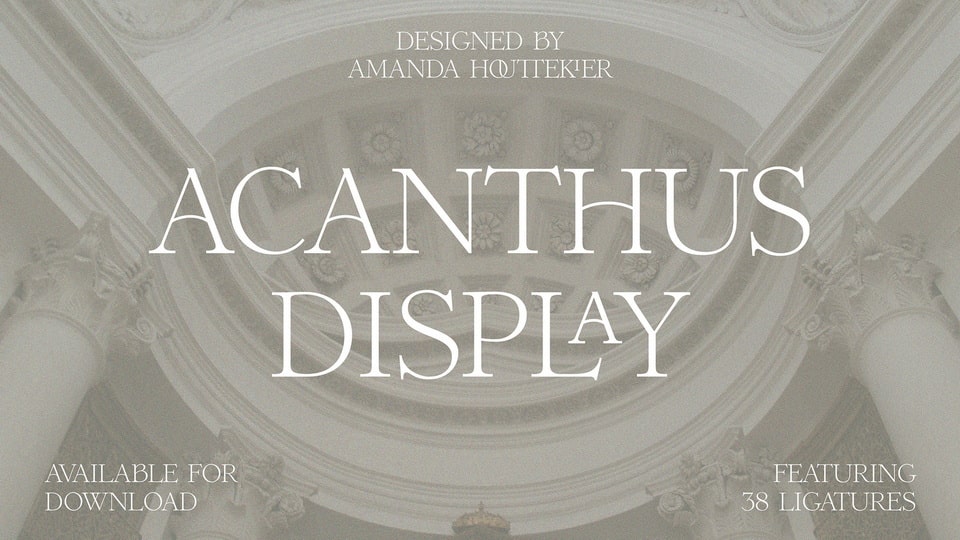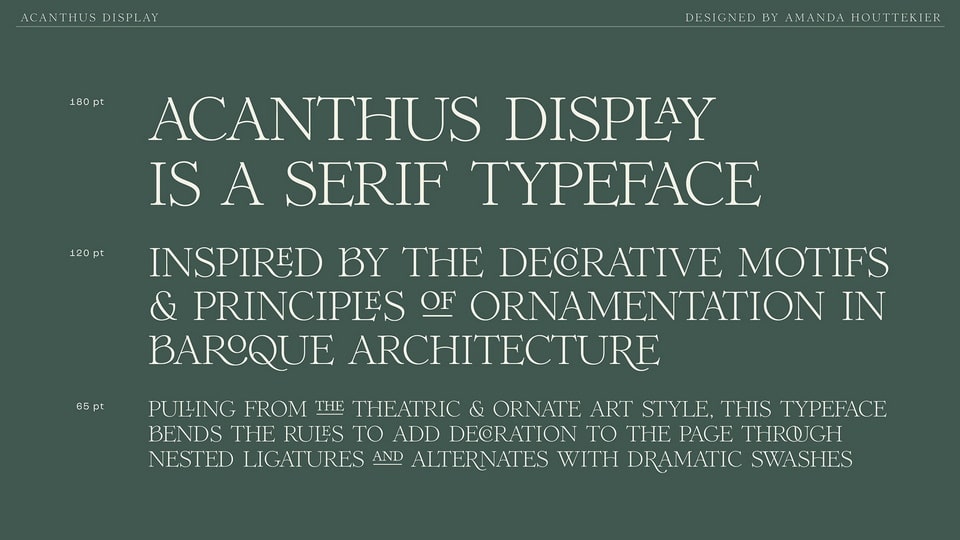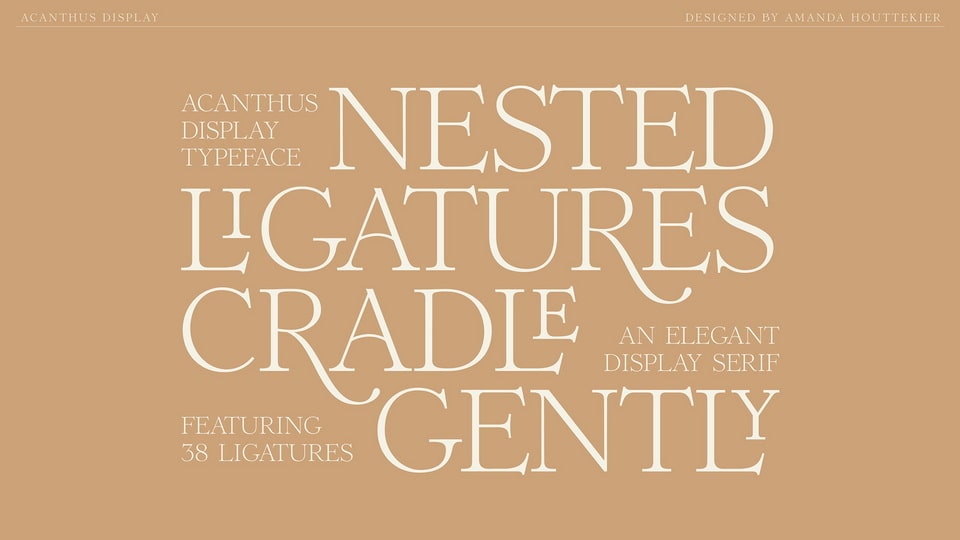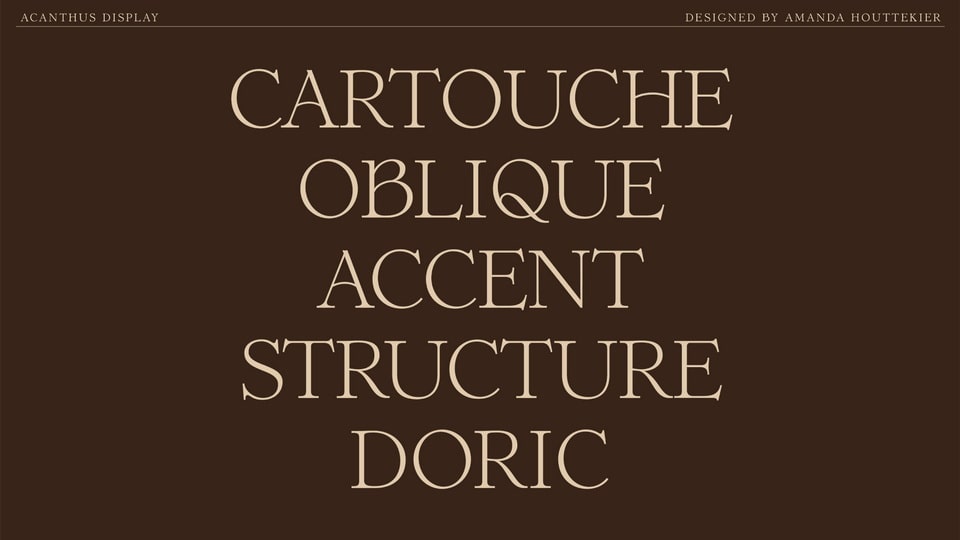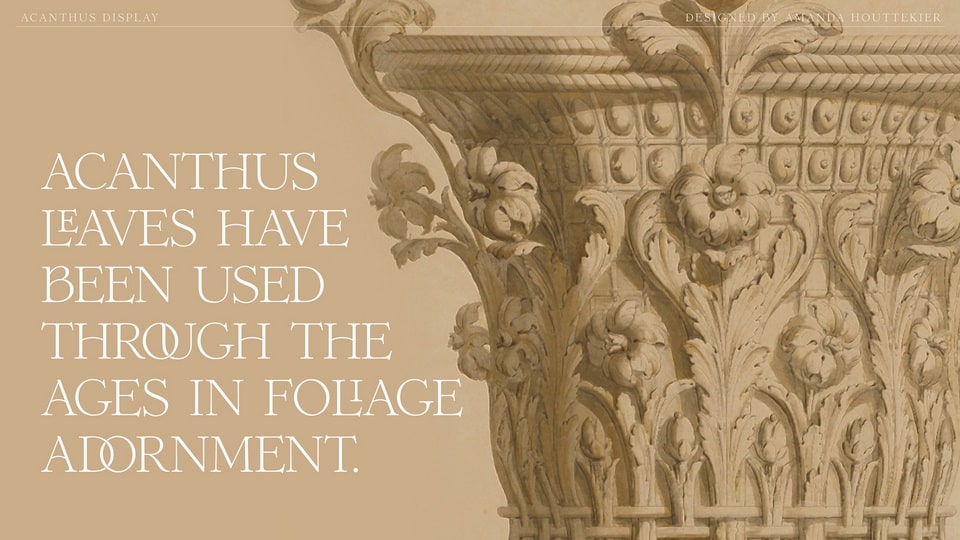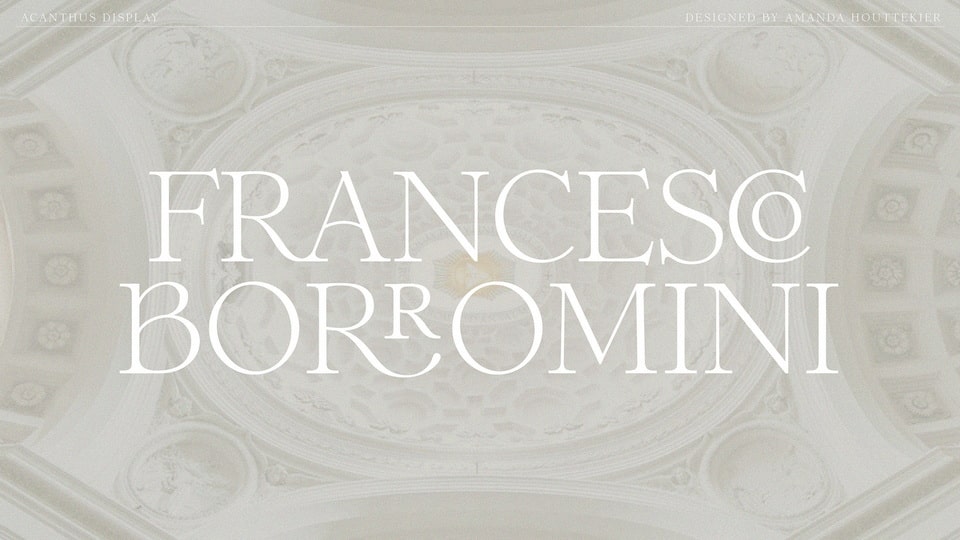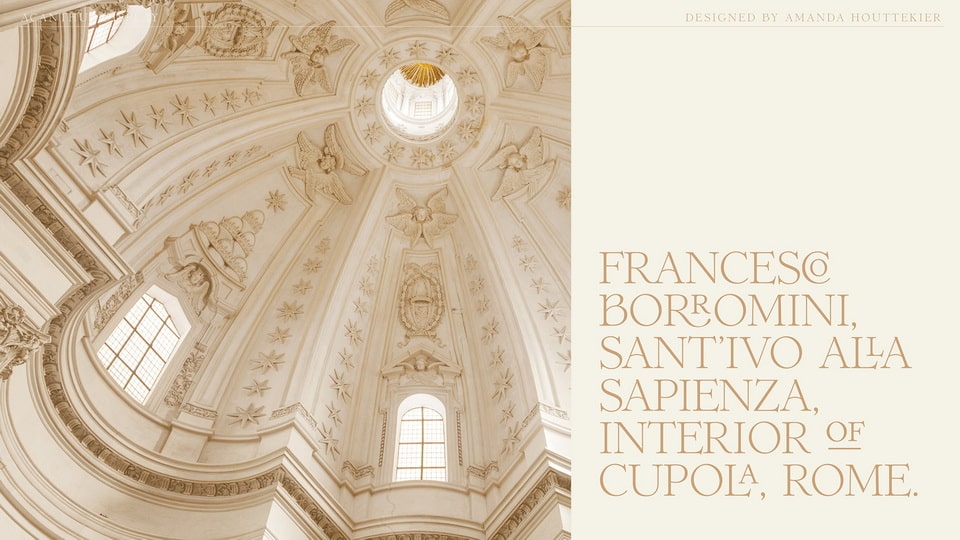
Acanthus Display is a serif typeface inspired by the decorative motifs and principles of ornamentation in baroque architecture.
Pulling from the theatric and ornate art style, Acanthus Display typeface bends the rules to add decoration to the page through nested ligatures and alternates with dramatic swashes.